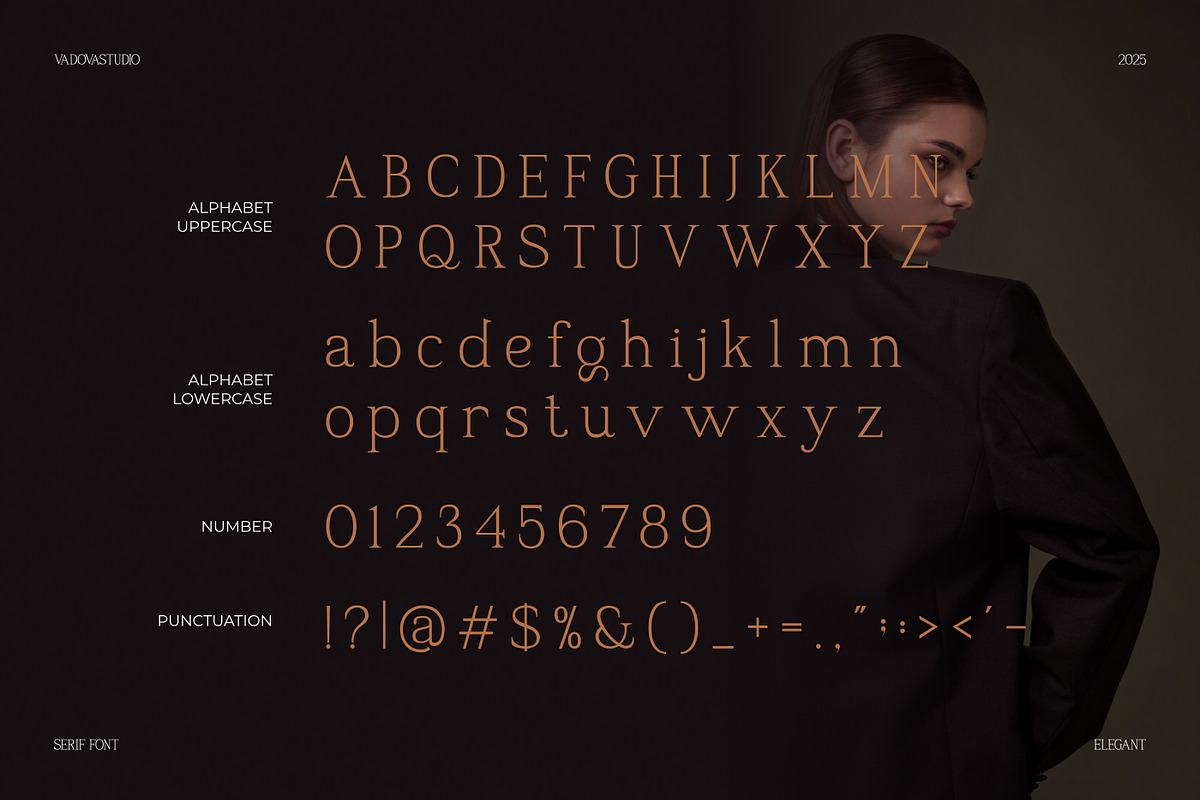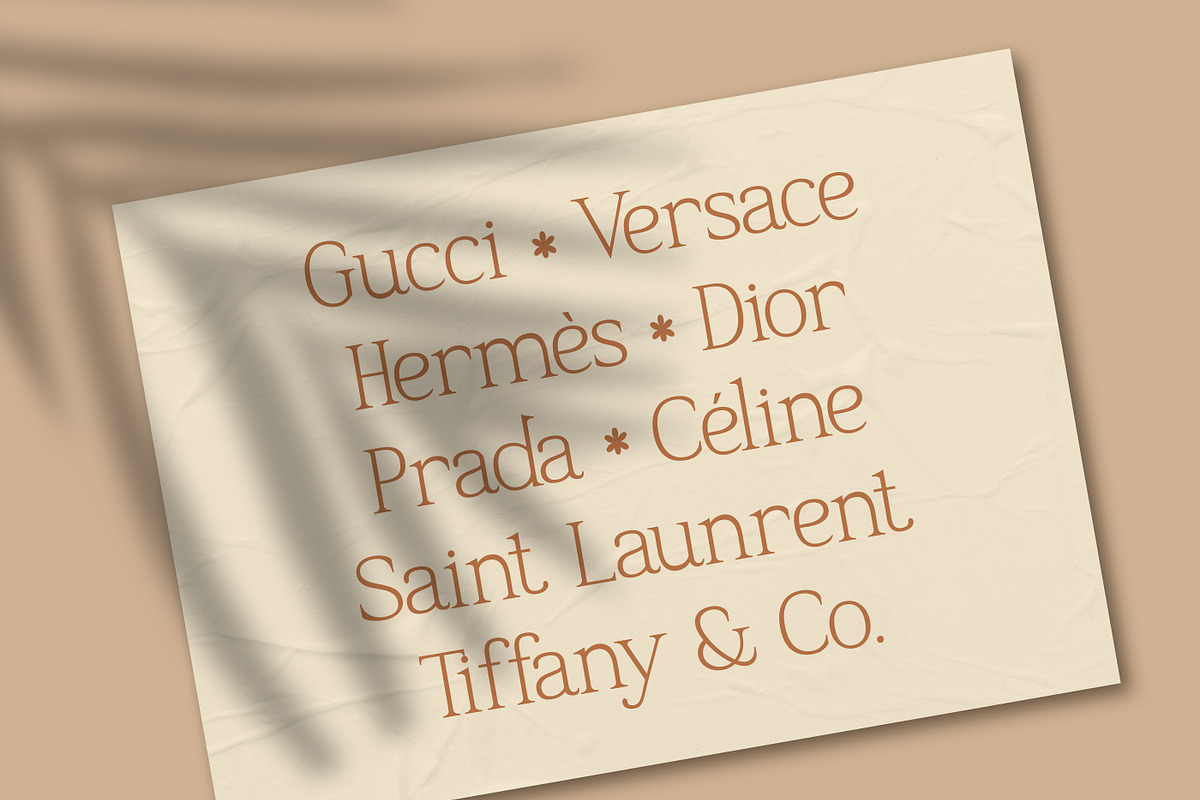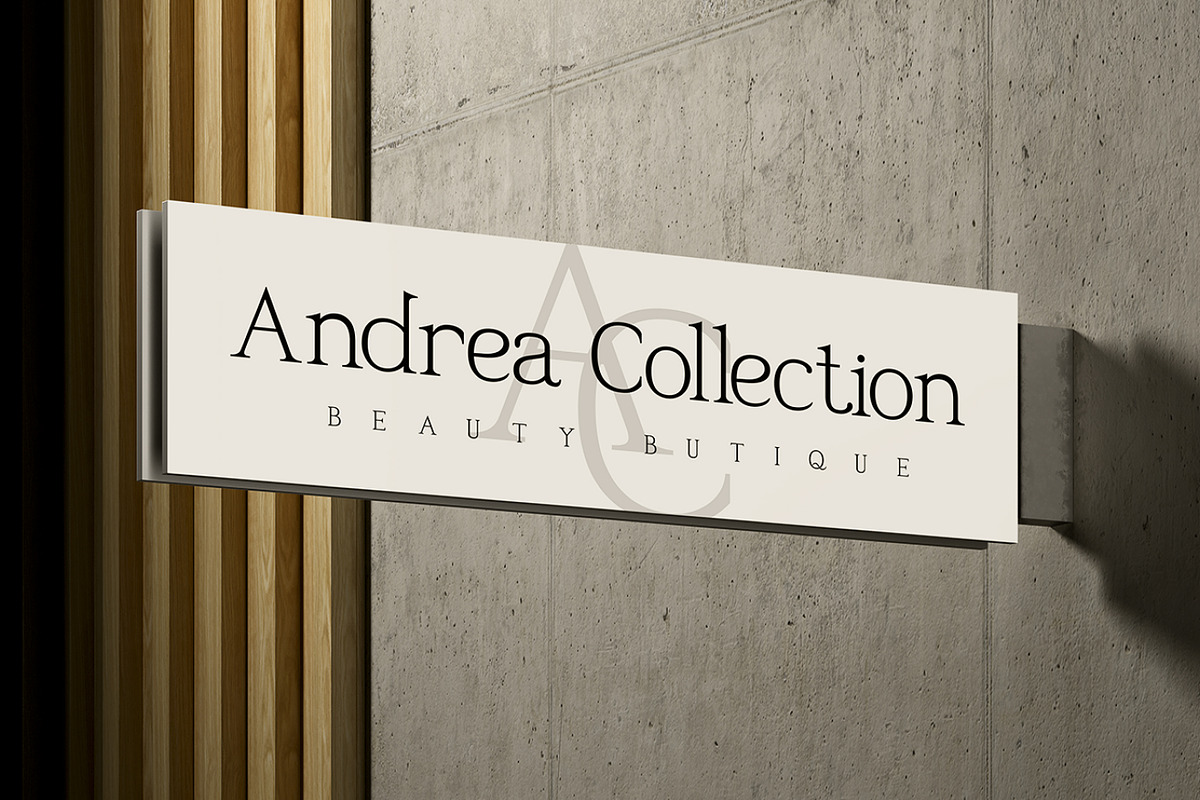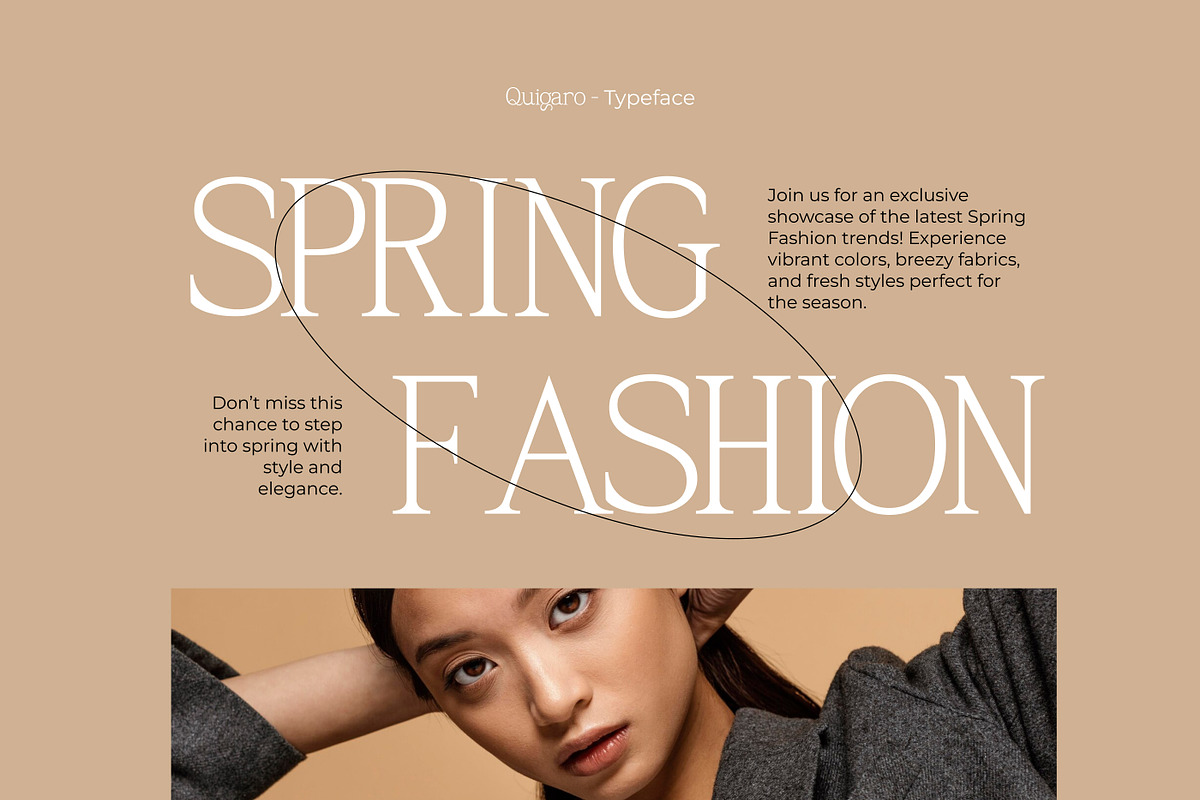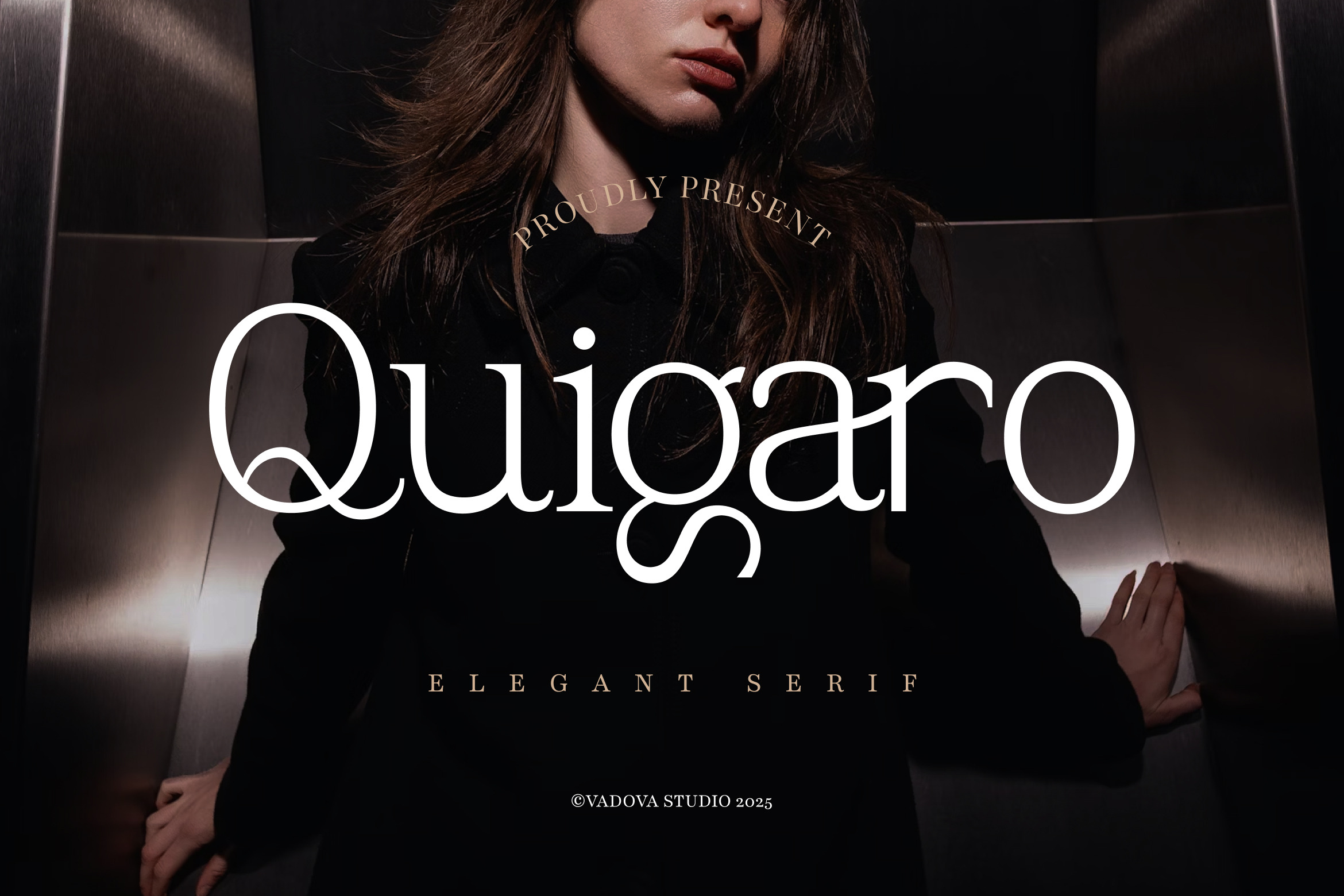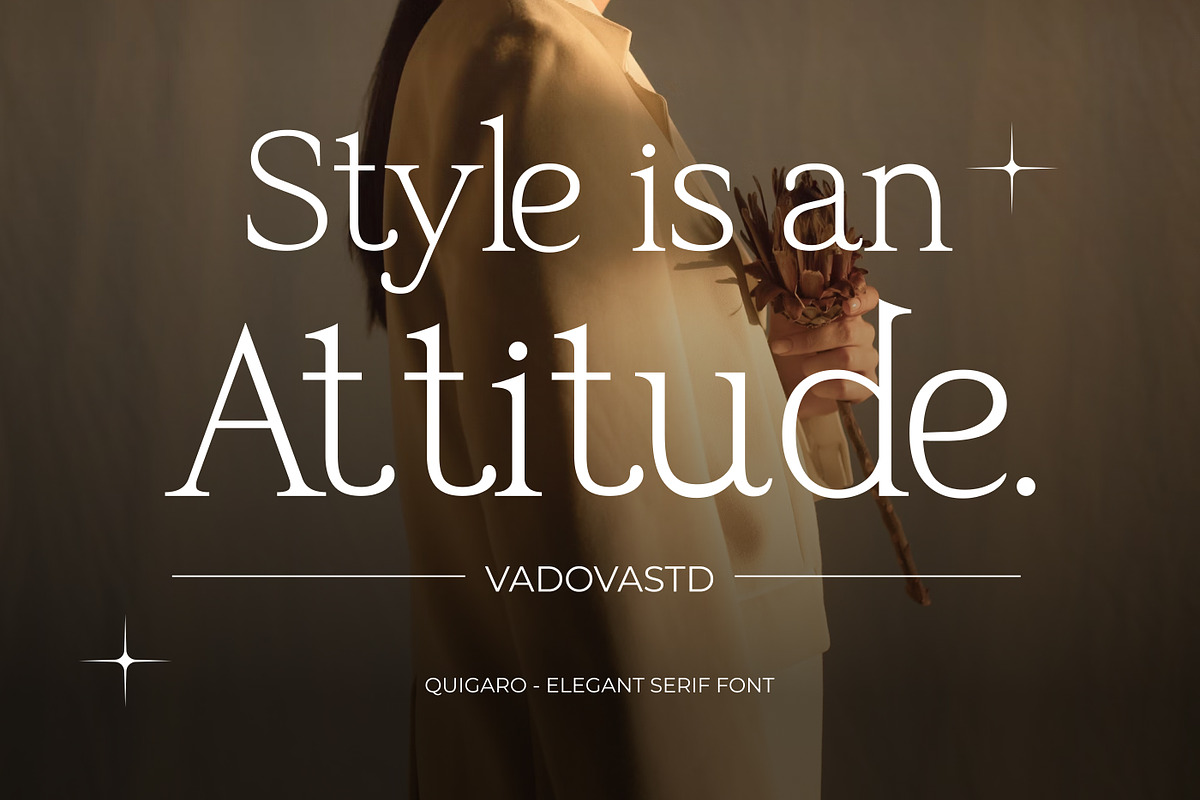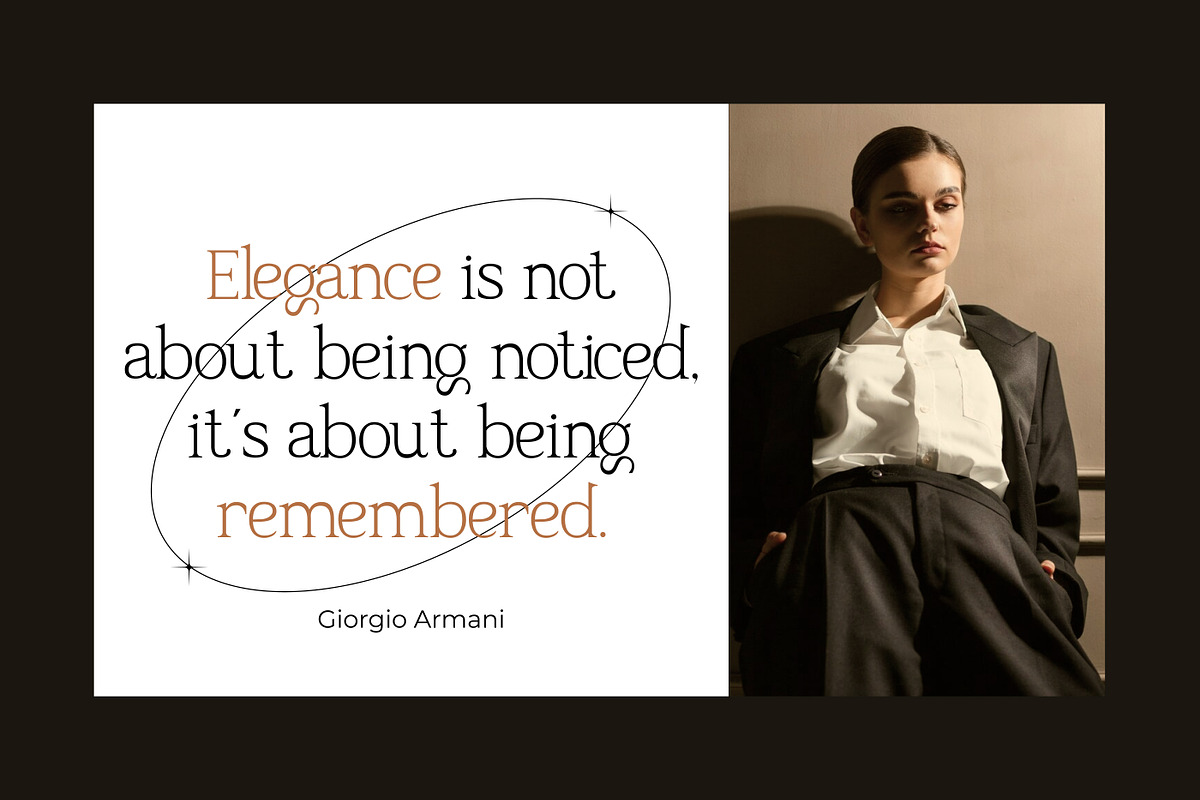
Quigaro – Elegant Serif Typeface
Quigaro is a modern elegant serif font designed with refined curves, bold contrasts, and stylish character. Perfect for fashion branding, editorial layouts, wedding stationery, and luxury packaging, Quigaro delivers both timeless sophistication and modern style.
This typeface is crafted for designers who want to create premium visuals that stand out with elegance and confidence.
Highlights
Elegant serif with high contrast details
Unique alternates and ligatures for creative typography
Perfect balance between classic tradition and modern refinement
Ideal for logos, fashion campaigns, and editorial headlines
Best Uses
Logos & Branding – build a premium identity
Editorial & Magazines – stylish layouts with strong headlines
Wedding & Stationery – timeless designs for special moments
Luxury Packaging – upscale labels and product branding
Social Media & Ads – elegant typography that captures attention
Ligatures – stylish letter combinations for unique looks
Alternates – alternate glyphs for creative flexibility
Multilingual Support – covering multiple international languages
Complete Character Set – uppercase, lowercase, numbers, punctuation
Elevate your designs with Quigaro, a serif typeface that blends elegance, modernity, and timeless style.